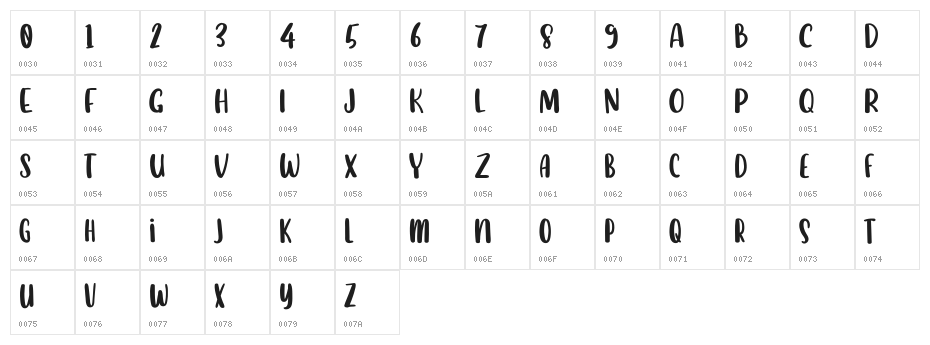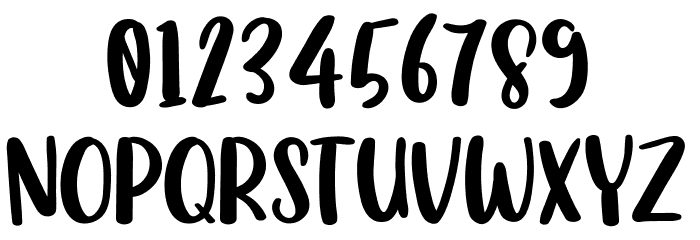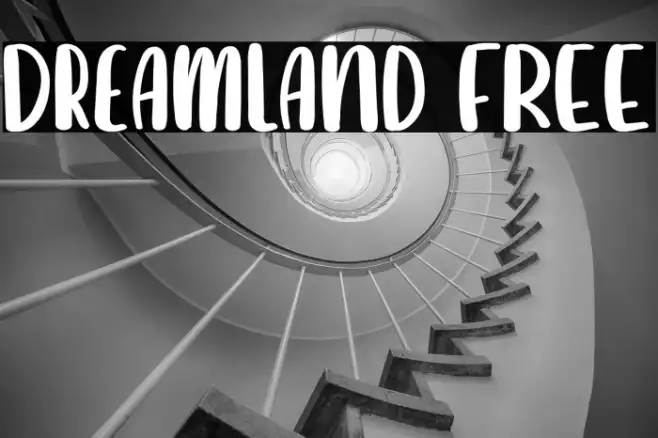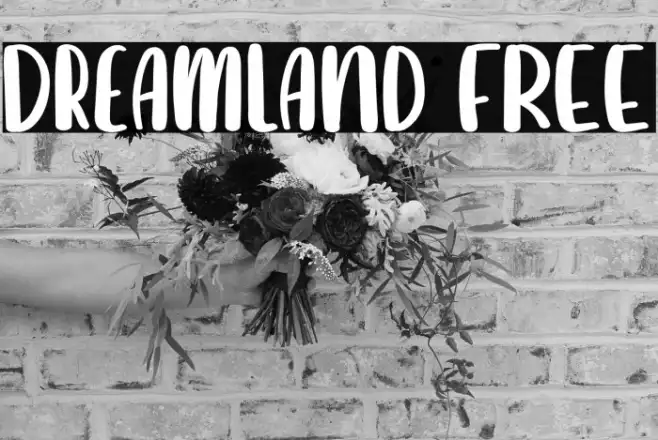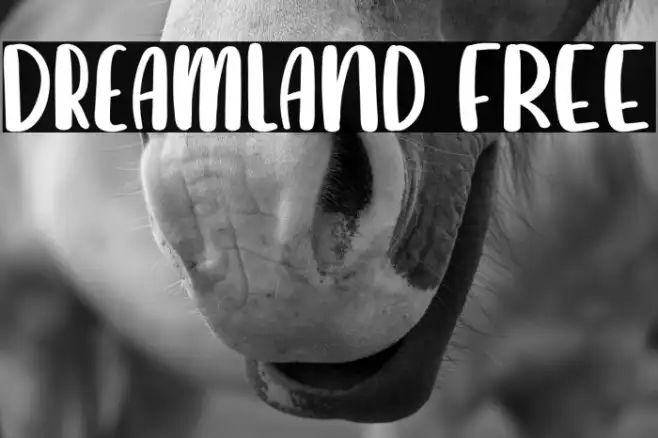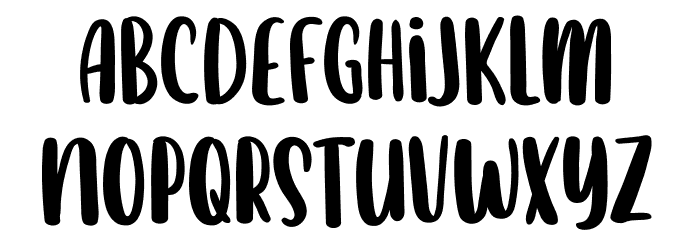
Dreamland FREE Font
Dreamland FREE Description
This font features a playful and bold handwritten style, characterized by its thick strokes and rounded edges. The letters are slightly slanted, giving a dynamic and energetic feel. The uppercase and lowercase letters maintain a consistent style, with a smooth flow that enhances readability. The numbers and special characters are designed to match the overall aesthetic, ensuring a cohesive look across all text elements. This font's unique personality makes it stand out, making it suitable for creative and informal projects.